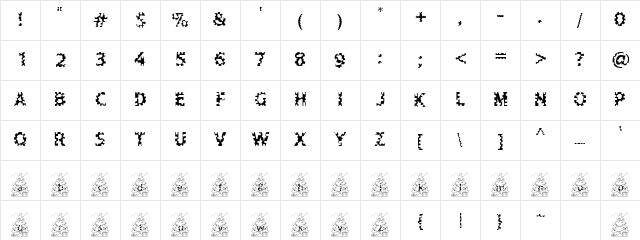
Complete NotEvenAMouse glyph index. Displaying only characters natively supported by NotEvenAMouse font.
NotEvenAMouse is a composed and adaptable typeface that performs quietly and consistently across a wide range of design contexts.